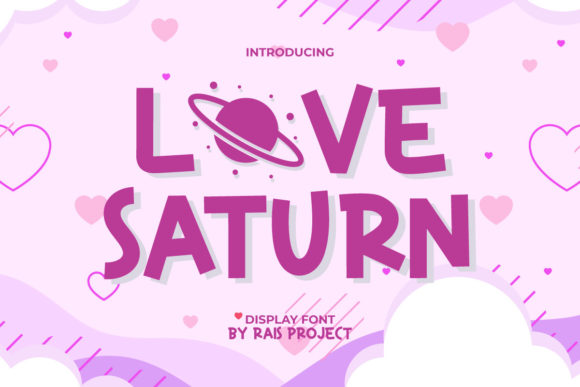
Love Saturn: A Creative Display Font
Love Saturn is more than just a font—it's a versatile tool for creative expression. With its friendly and modern design, it brings a unique personality to any project. Whether you're designing a logo, crafting a headline, or creating social media content, Love Saturn offers a fresh and approachable look that can elevate your work.
This display font stands out for its balance of style and readability. Its curves are smooth, and its structure is clean, making it ideal for both digital and print applications. The font’s character makes it especially appealing for brands that want to convey warmth and creativity without sacrificing professionalism.
Why Love Saturn Works for Different Projects
One of the most appealing aspects of Love Saturn is its adaptability. It works well in a variety of contexts, from marketing materials to personal projects. Its friendly appearance makes it perfect for campaigns targeting younger audiences, while its clarity ensures it remains effective in more formal settings.
For instance, a small business owner might use Love Saturn for a website header or a product label. The font adds a touch of personality without overwhelming the viewer. Similarly, a designer could use it for a poster or brochure, giving their work a distinctive visual identity.
Love Saturn also pairs well with other fonts. When used alongside a more traditional typeface, it can add contrast and visual interest. This makes it a great choice for layouts where differentiation is key.
Creative Applications of Love Saturn
The possibilities for using Love Saturn are nearly endless. Here are a few examples of how different users can incorporate it into their work:
Each of these applications highlights how Love Saturn can be tailored to fit specific needs. Whether you're working on a large-scale campaign or a personal project, the font adapts easily to different formats and purposes.
How to Use Love Saturn Effectively
To get the most out of Love Saturn, consider the following tips:
1. Keep it simple: Avoid overusing the font in a single design. Use it as a focal point rather than a background element.
2. Test readability: Ensure the font is legible at different sizes and in various contexts. This is especially important for web and mobile use.
3. Experiment with spacing: Adjust letter and line spacing to improve clarity and aesthetics.
4. Combine with complementary styles: Pair Love Saturn with other fonts to create a balanced and visually engaging layout.
By following these guidelines, you can ensure that your use of Love Saturn is both effective and visually appealing. The goal is to enhance your message, not overshadow it.
Who Benefits from Using Love Saturn?
Love Saturn is particularly useful for professionals who rely on visual communication. For example:
Its versatility makes it a go-to choice for anyone looking to add a creative edge to their work. Whether you're a seasoned professional or just starting out, Love Saturn can help you express your ideas more effectively.
Final Thoughts on Love Saturn
Love Saturn is more than just a font—it's a tool that empowers creativity. Its friendly yet professional look makes it suitable for a wide range of applications, from personal projects to commercial use. By understanding how to use it effectively, you can unlock new ways to communicate your message and connect with your audience.
As you explore the possibilities of Love Saturn, remember that the best results come from thoughtful application. Experiment, test, and refine your approach to ensure that your work stands out in the best way possible. With Love Saturn, the only limit is your imagination.